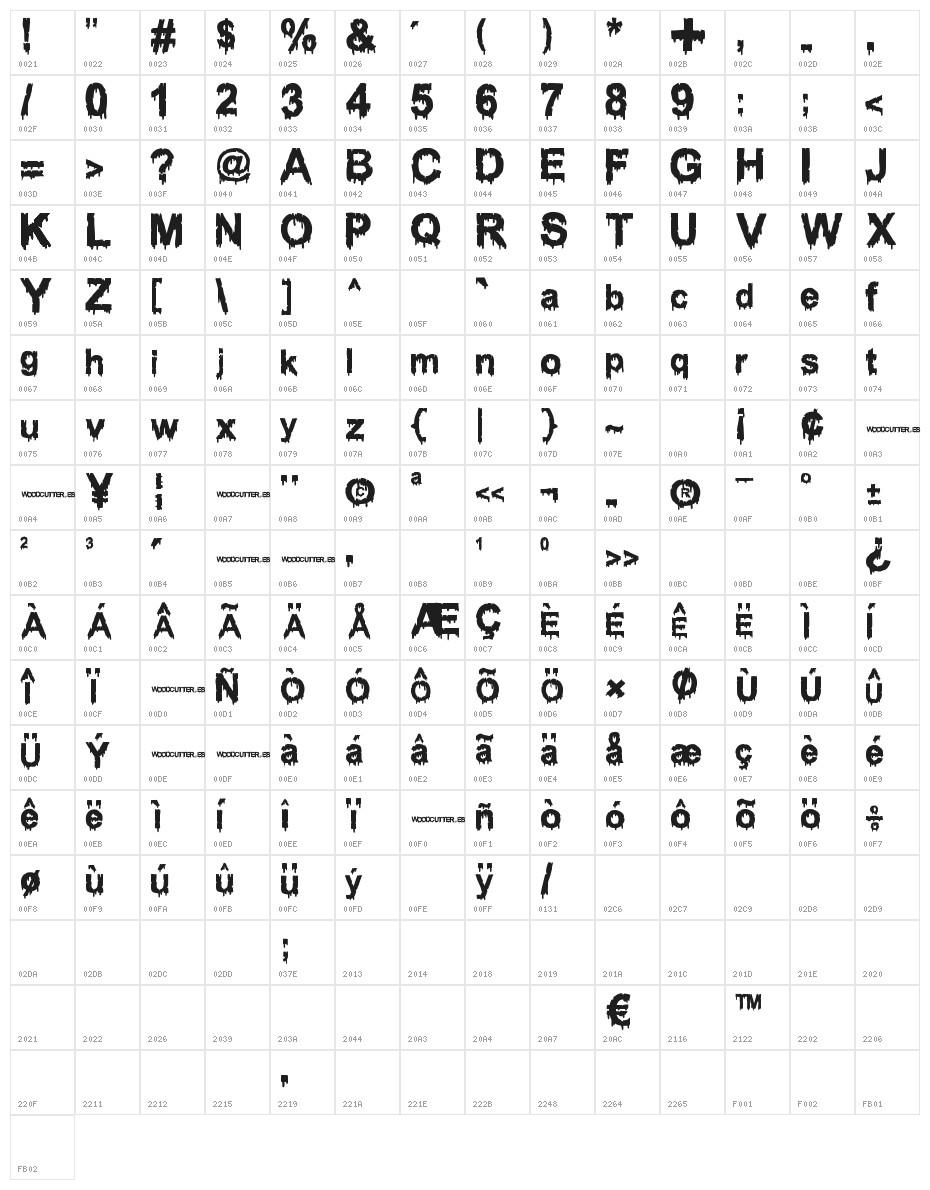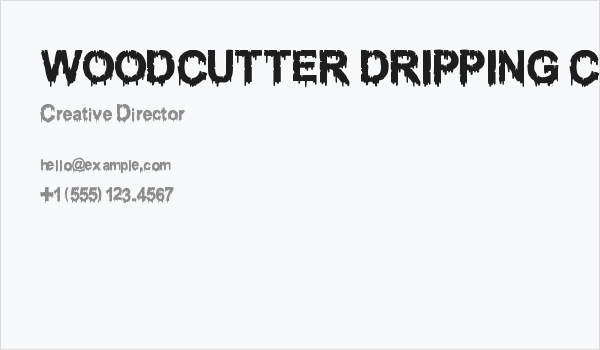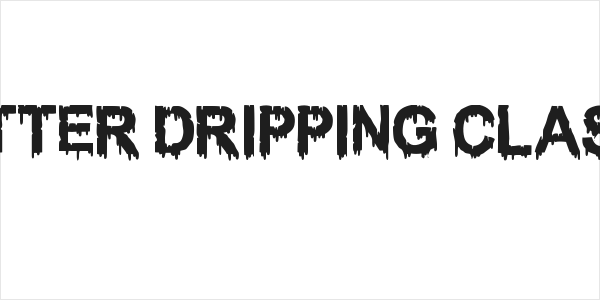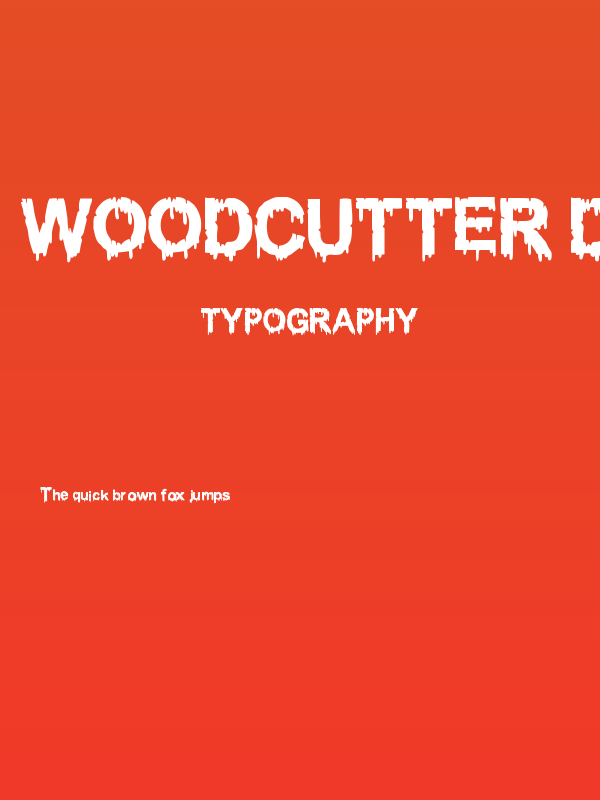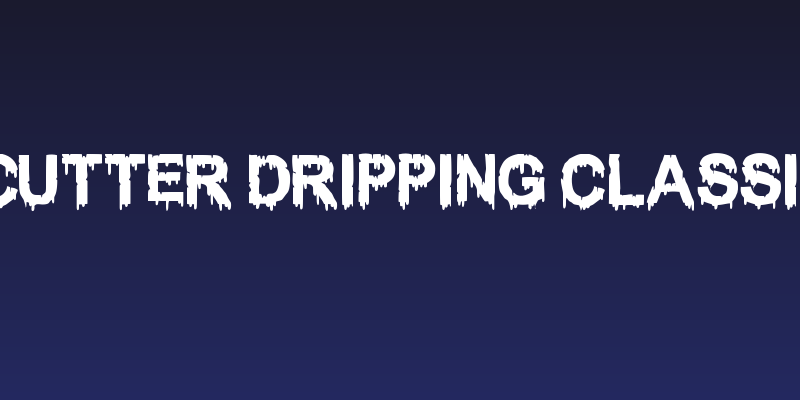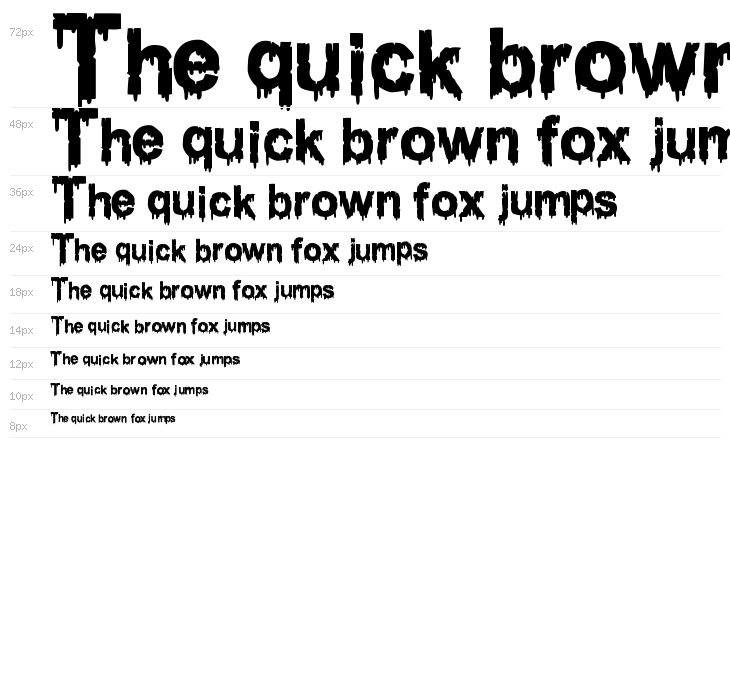
WOODCUTTER DRIPPING CLASSIC FONT Font
WOODCUTTER DRIPPING CLASSIC FONT Description
This font features a unique and eye-catching design with a dripping effect that gives it a bold and dramatic appearance. The uppercase and lowercase letters, as well as numbers and special characters, all exhibit this distinctive style, making it ideal for projects that require a striking and unconventional look. The characters are bold and have a somewhat irregular outline, enhancing the dripping effect. This font is perfect for Halloween themes, horror movie posters, or any creative project that seeks to capture attention with a spooky or eerie vibe.
| Proposed Projects | Ideal for Halloween-themed designs, horror movie posters, event flyers, and creative branding projects. |